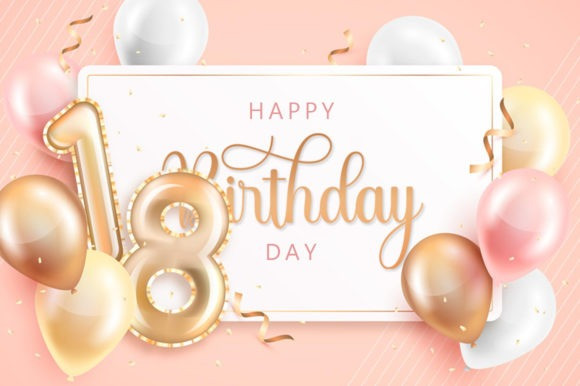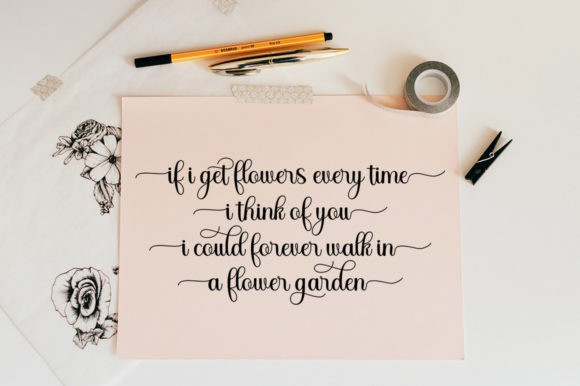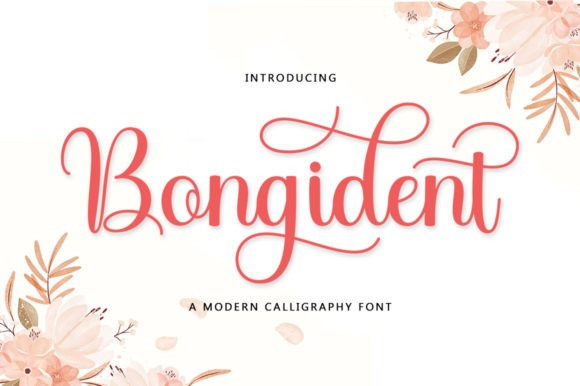
Bongident Calligraphy Font
Bongident Script is a lovely script font featuring charming, playful characters that seem to dance along the baseline. It is PUA encoded which means you can access all of the amazing glyphs and ligatures with ease!